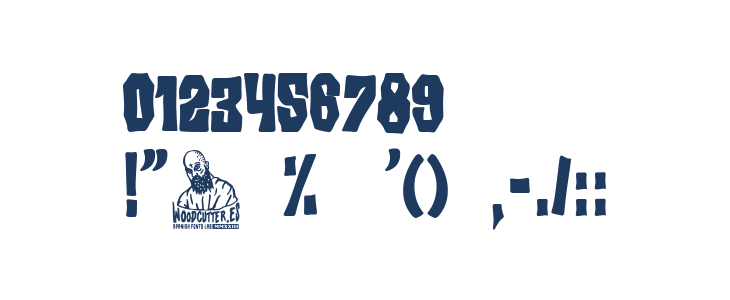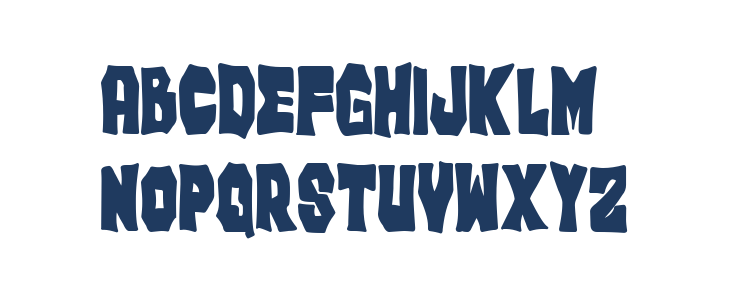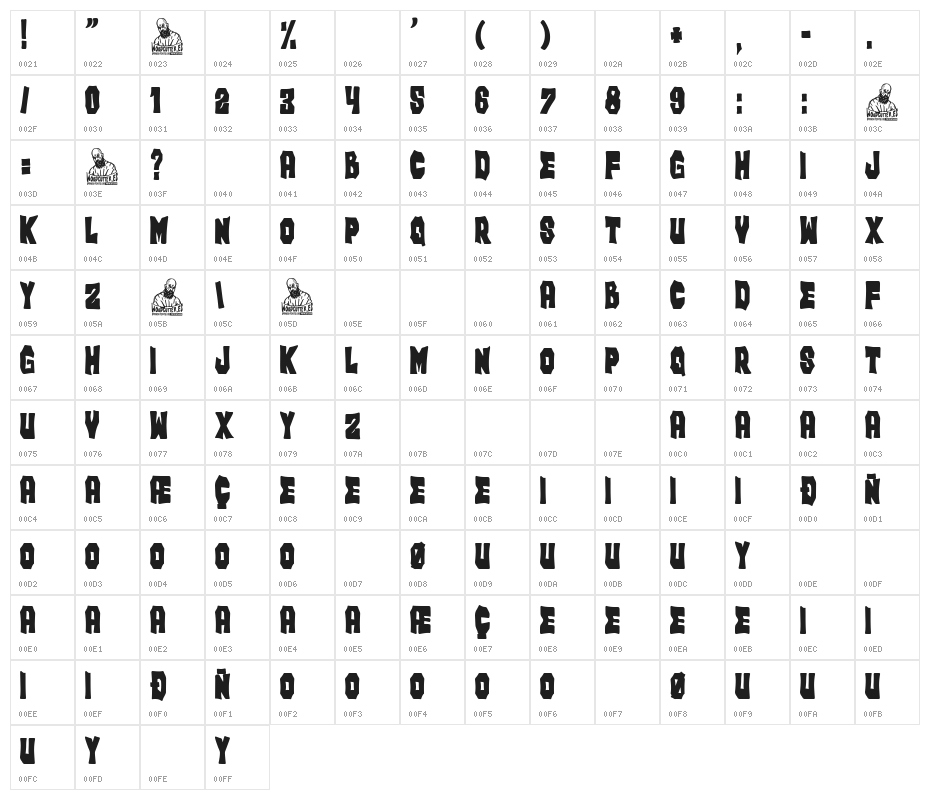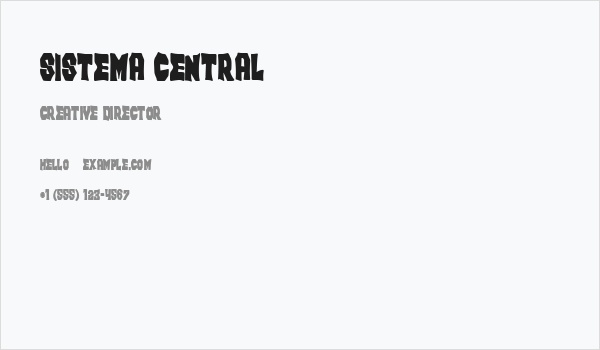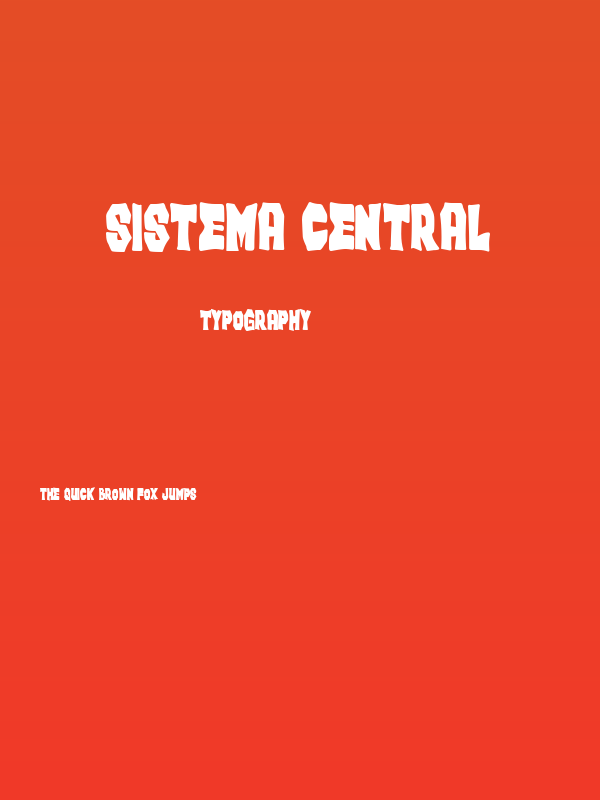
Sistema Central Font
Sistema Central Description
A bold, irregular display typeface with angular, blocky letterforms and a hand-cut, rough appearance. The characters have uneven edges and varying widths, giving a dynamic and energetic look.
| Overall Style | Decorative, Handcrafted, Edgy |
| Proposed Projects | Posters, album covers, horror or thriller movie titles, comic books, event flyers, branding for edgy or alternative products. |